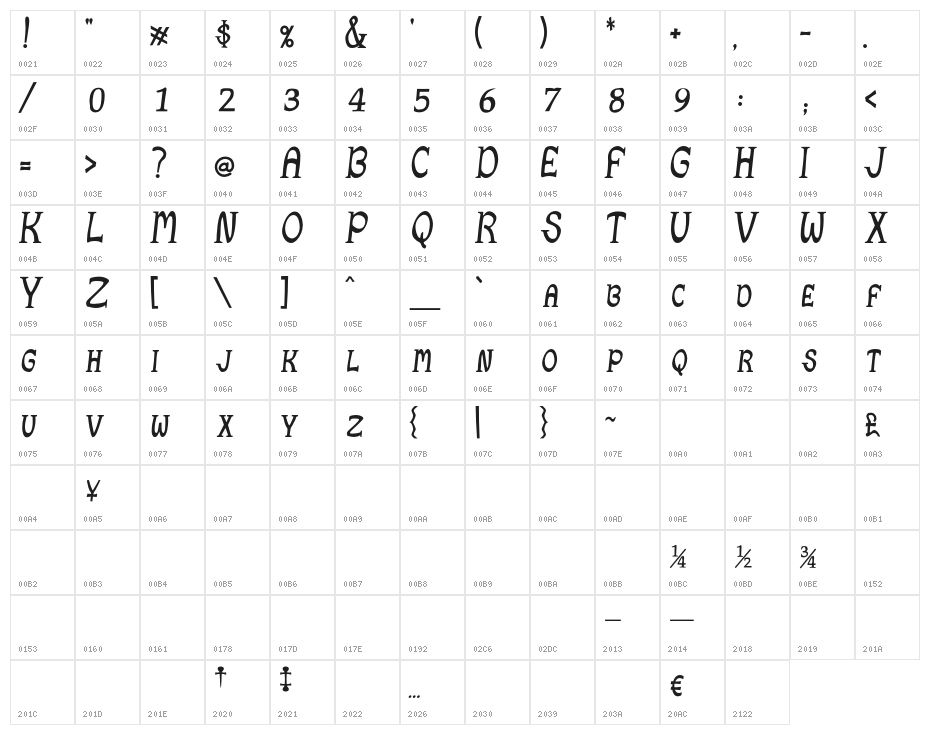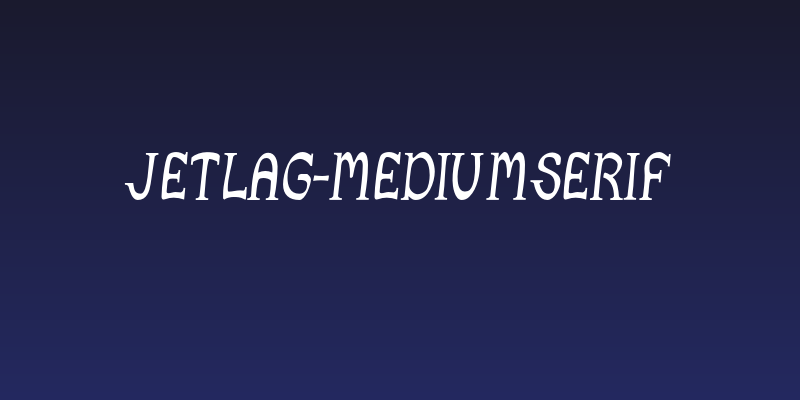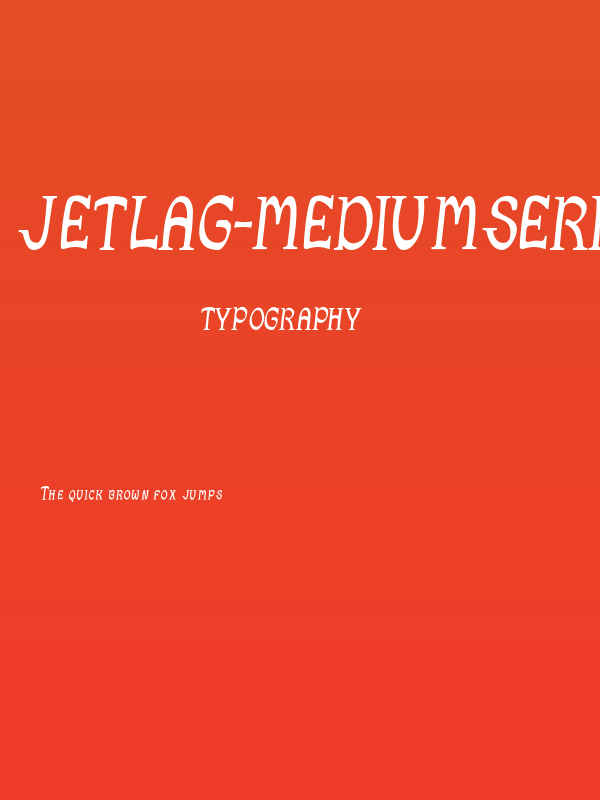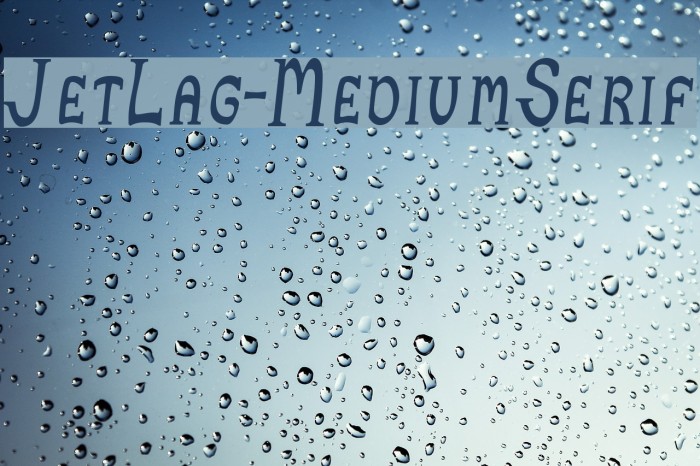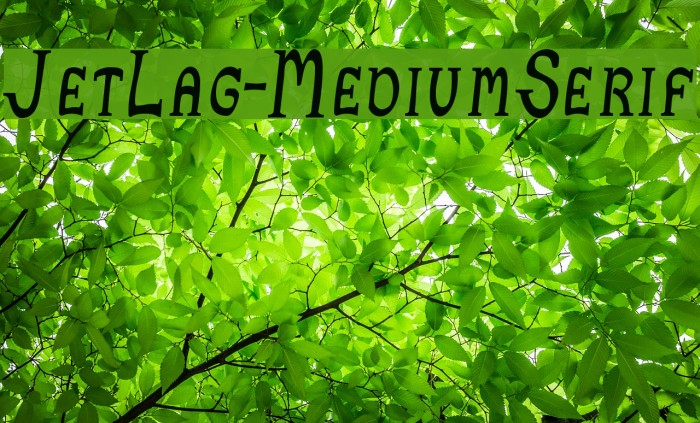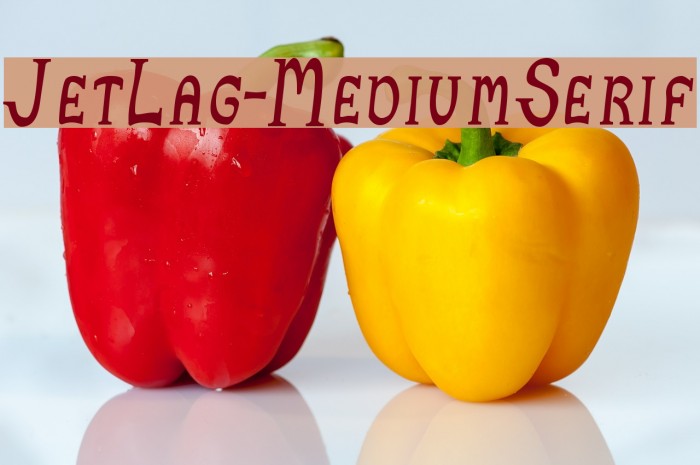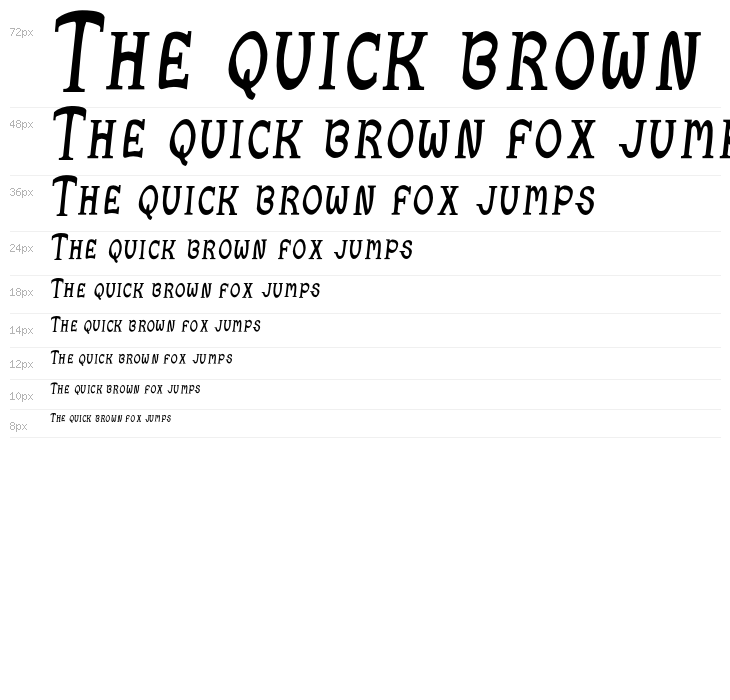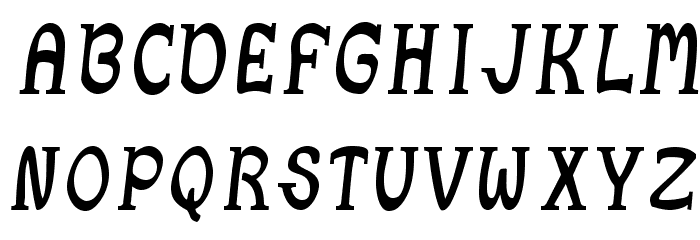
JetLag-MediumSerif Font
JetLag-MediumSerif Description
This font features a distinctive serif style with a playful and slightly whimsical appearance. The characters have a medium weight, providing a balanced look that is neither too heavy nor too light. The serifs are pronounced, adding a touch of elegance and tradition, while the overall design maintains a modern flair. The uppercase and lowercase letters are well-proportioned, with a slight slant that gives a sense of movement and dynamism. The numerals are clear and consistent, making them easily readable. Special characters are included, maintaining the same stylistic elements as the alphabet. This font is versatile, suitable for a variety of design projects that require a blend of classic and contemporary aesthetics.
| Use Case | Headlines, Logos, Editorial design |
| Proposed Projects | Ideal for branding, editorial design, packaging, and invitations where a touch of elegance and modernity is desired. |